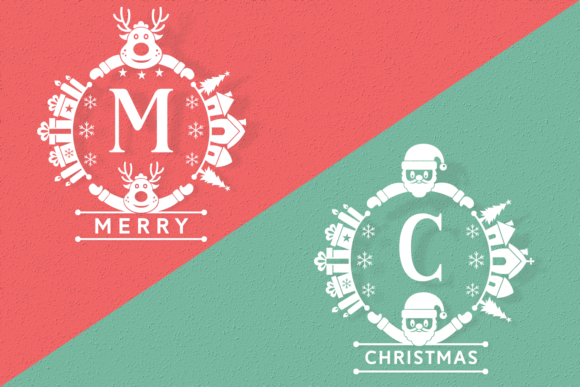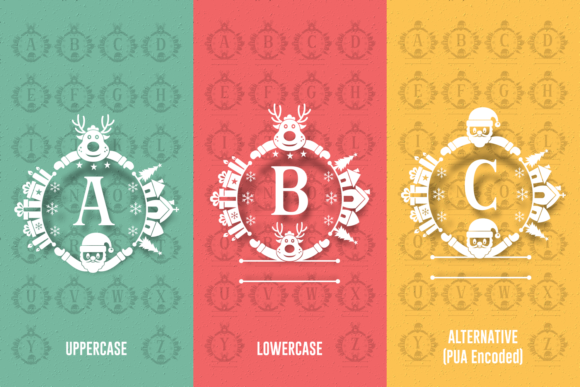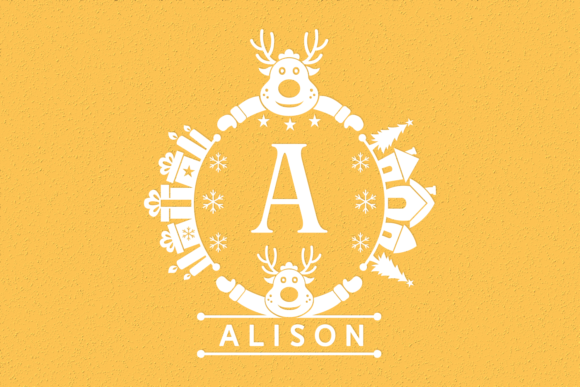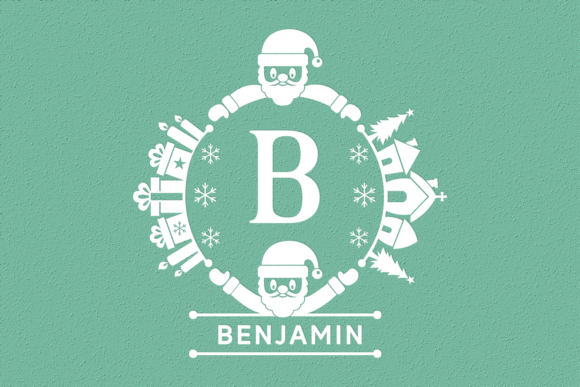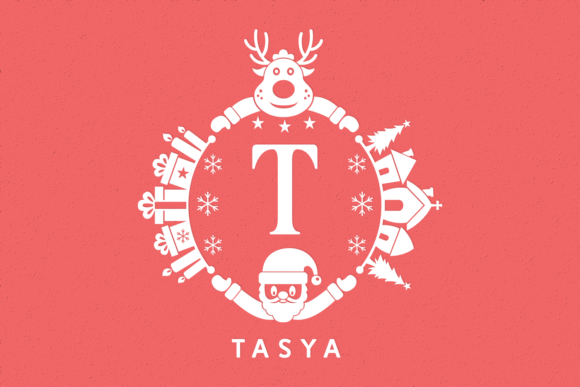
Introduction to Sleigh Font
Sleigh is a detailed, festive and charming decorative font.
It is PUA encoded which means you can access all glyphs and swashes with ease This font is perfect for wintery themed designs, especially when combined with warm colors.
Key Features of Sleigh Font